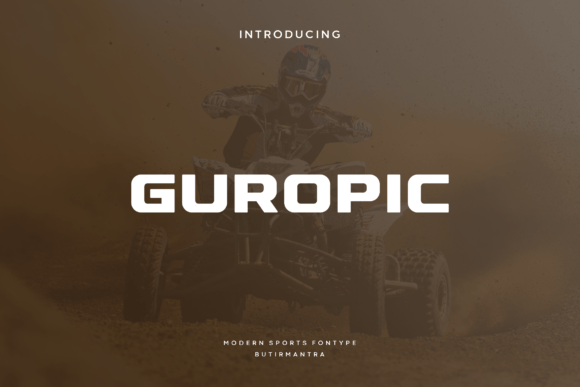
Introduction to Guropic Font
Guropic is a thick-lettered, modern sans-serif font.
Key Features of Guropic Font
Why Choose Guropic Font?
Guropic Font offers exceptional quality and versatility, making it a valuable addition to your design toolkit. Whether you’re creating for personal projects or commercial use, Guropic Font delivers professional results.